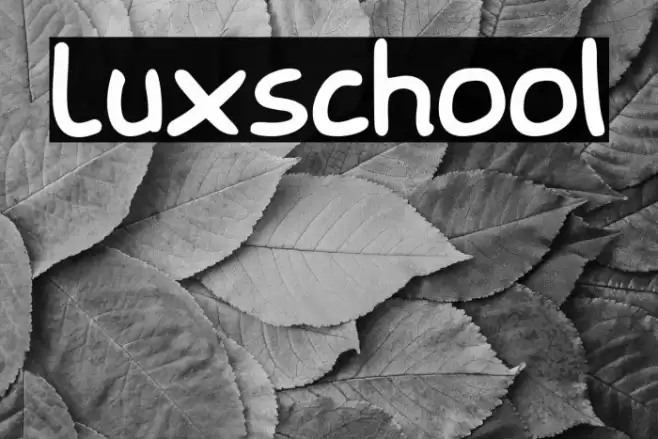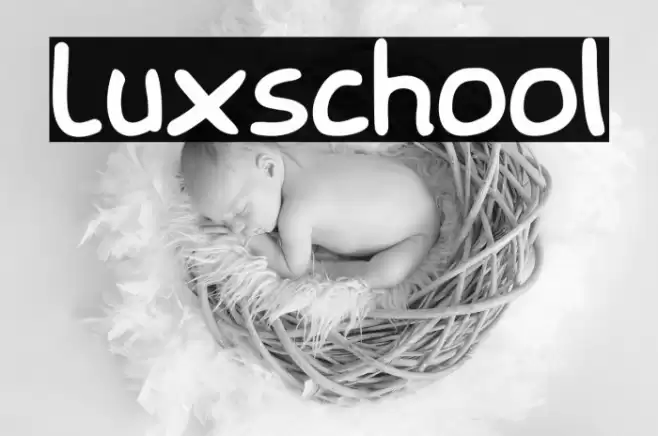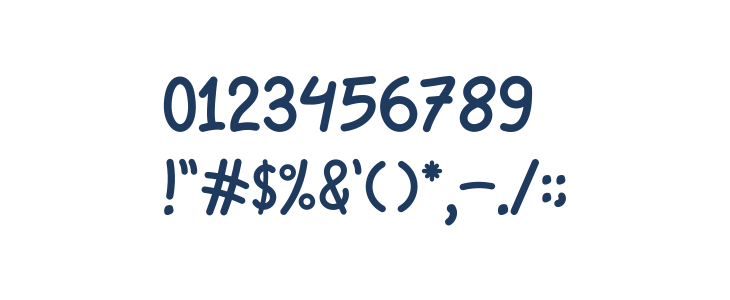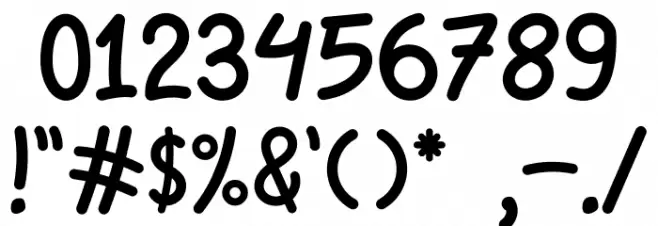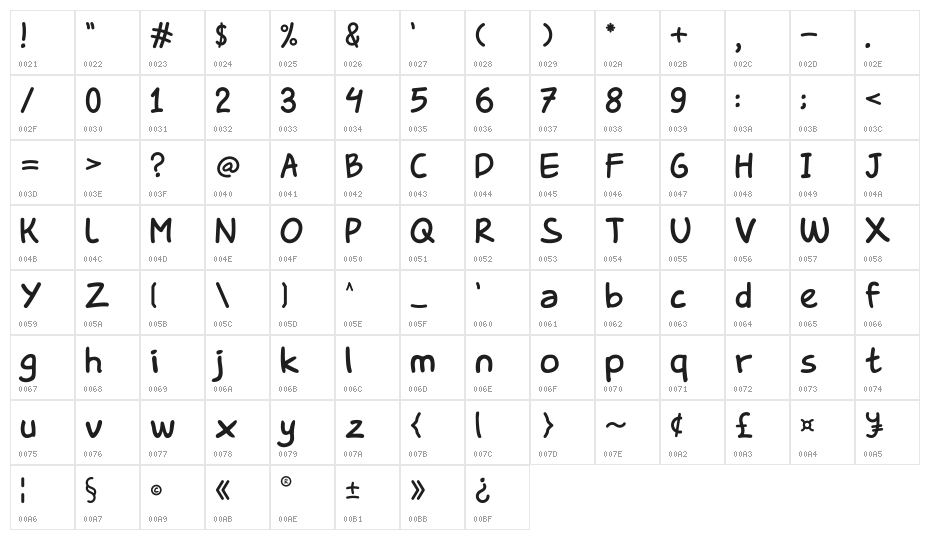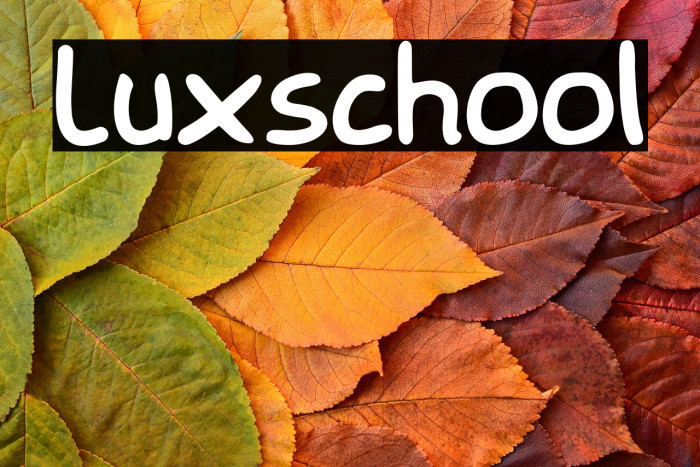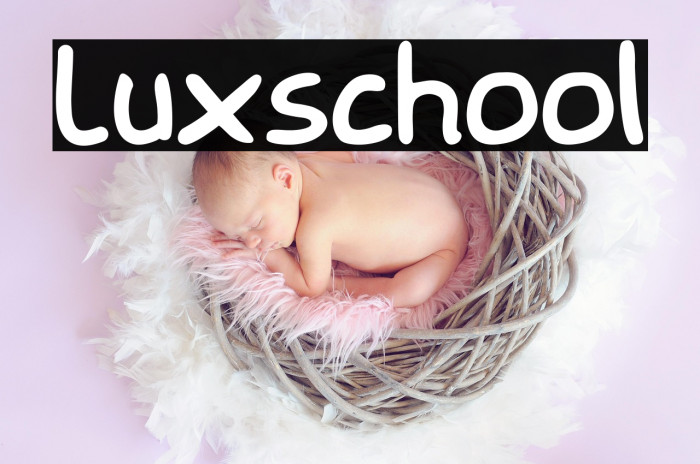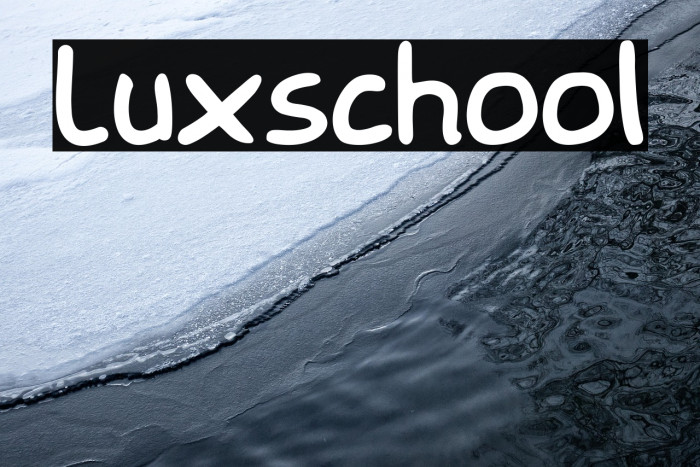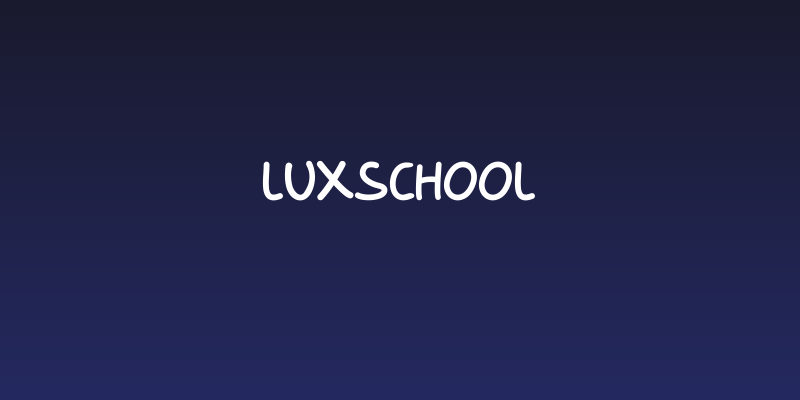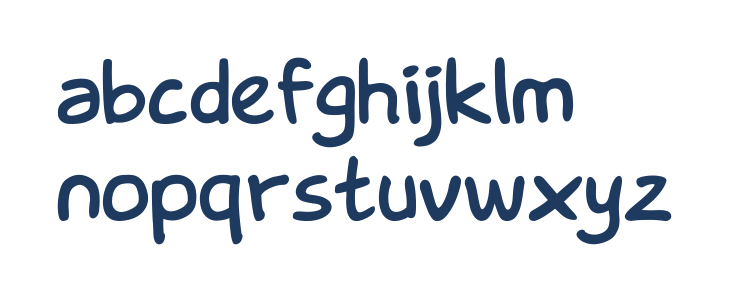
Luxschool Font
Luxschool Description
This playful and rounded font features a handwritten style that exudes a casual and friendly vibe. The characters are bold and slightly irregular, giving it a whimsical and approachable appearance. The uppercase and lowercase letters maintain a consistent flow, while the numerals and special characters complement the overall style. Its informal nature makes it ideal for projects that require a personal touch or a fun, lighthearted aesthetic. The font's design is both versatile and distinctive, making it suitable for a variety of creative applications.
A playful, handwritten font with bold, rounded characters from Regular fonts.
- Proposed Projects: Ideal for children's books, greeting cards, playful branding, and casual invitations.
- Overall Style: Casual, Playful
- Use Case: Headlines, Logos, Informal Text